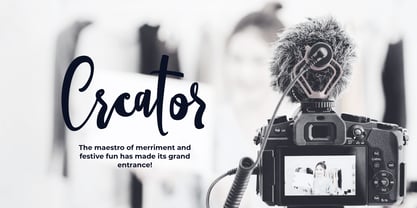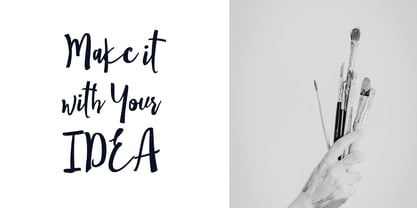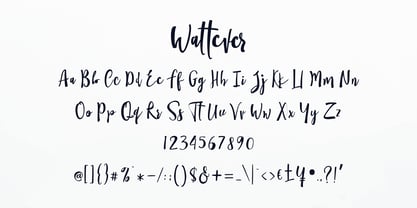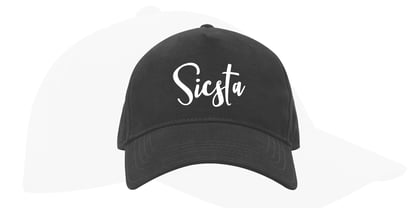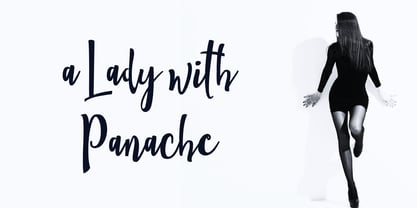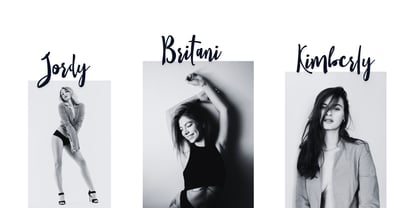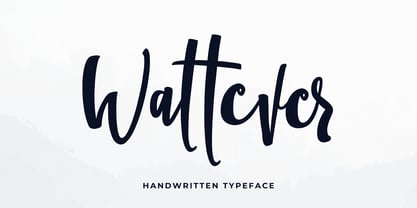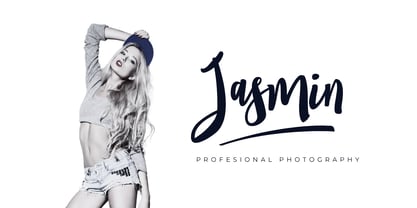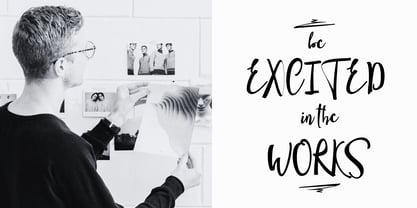
Wattever
by BonjourType
The Wattever Font Family was designed by Rachma and published by BonjourType. Wattever contains 1 styles. More about this family
Wattever Typeface Wattever is a refined brush handwritten typeface that blends natural strokes with a sophisticated modern feel. Its subtle imperfections and flowing forms create a warm, personal, and effortlessly luxurious impression. With a rich set of stylistic alternates and ligatures, Wattever allows you to craft unique and expressive lettering—turning even simple words into striking visual statements. Features: Uppercase & Lowercase Stylistic Alternates Ligatures Numbers & Punctuation Multilingual Support PUA Encoded Perfect for luxury branding, logos, fashion, packaging, wedding designs, and elegant visual projects. Thank you, Rachma